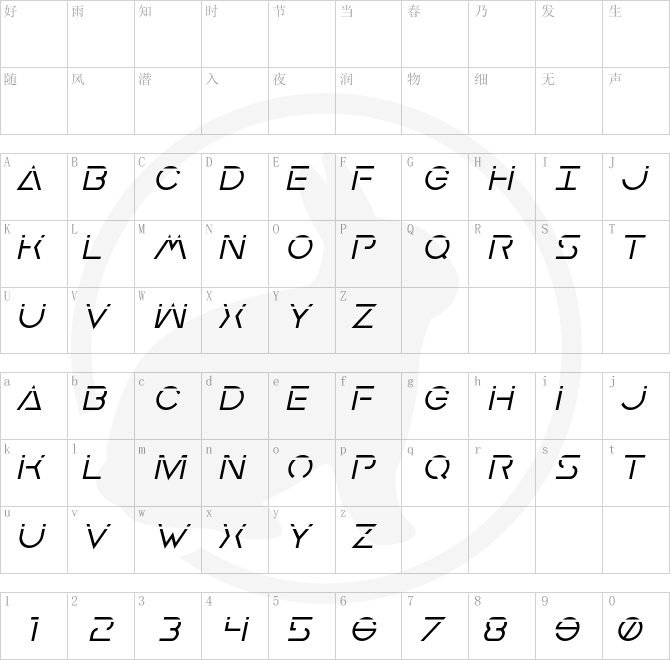
- Font Name:Earth Orbiter Laser Italic
Earth-Orbiter-Laser-Italic.ttf is a very beautiful artistic font, Earth-Orbiter-Laser-Italic.ttf is widely used in the design and printing of various books and pictures,Earth-Orbiter-Laser-Italic.ttf has a strong visual impact,Earth-Orbiter-Laser-Italic.ttf is a commonly used font in newspapers, magazines and books, and is used in posters, e-commerce Poster design, store design, logo design, font design and other fields.Earth-Orbiter-Laser-Italic.